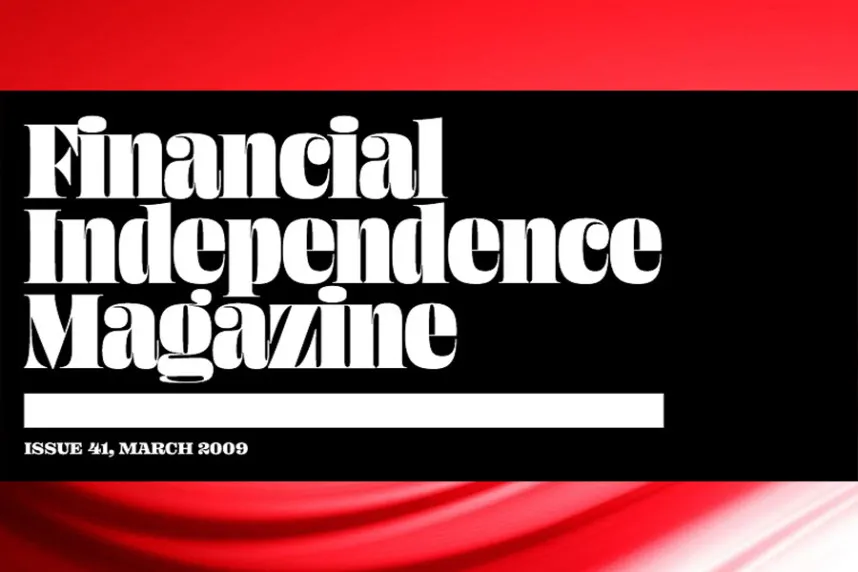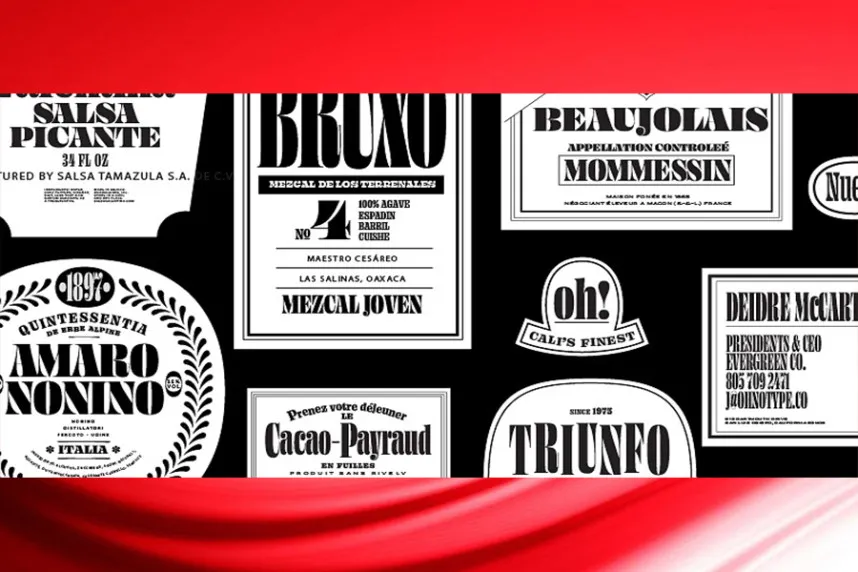
Ohno Fatface Font is an ultra-bold serif with extreme stroke contrast. It is a modern take on the classic Fatface style, popular in poster design. Its thin serifs play against incredibly thick main strokes.
This creates a dramatic and theatrical typographic voice. It is both elegant and bold, a difficult combination to master. The font has a strong personality and vintage flair.
Perfect for fashion headlines, music posters, and bold branding. It makes a statement that is both confident and refined. It has a certain retro charm that feels fresh again.
When used, it requires careful spacing and large sizes. Its details can get lost if it’s scaled down too much. It is truly a font meant for display purposes.
Pair it with a simple geometric sans-serif for a modern twist. This contrast highlights its unique structural qualities. Ohno Fatface demands a complementary partner.
Type Ultra-Bold Serif
Usage Fashion headlines, music posters, and vintage-inspired designs
This font is not subtle; it is a typographic spectacle. It celebrates the beauty of extreme contrast and bold forms. Ohno Fatface is a dramatic and unforgettable typeface.